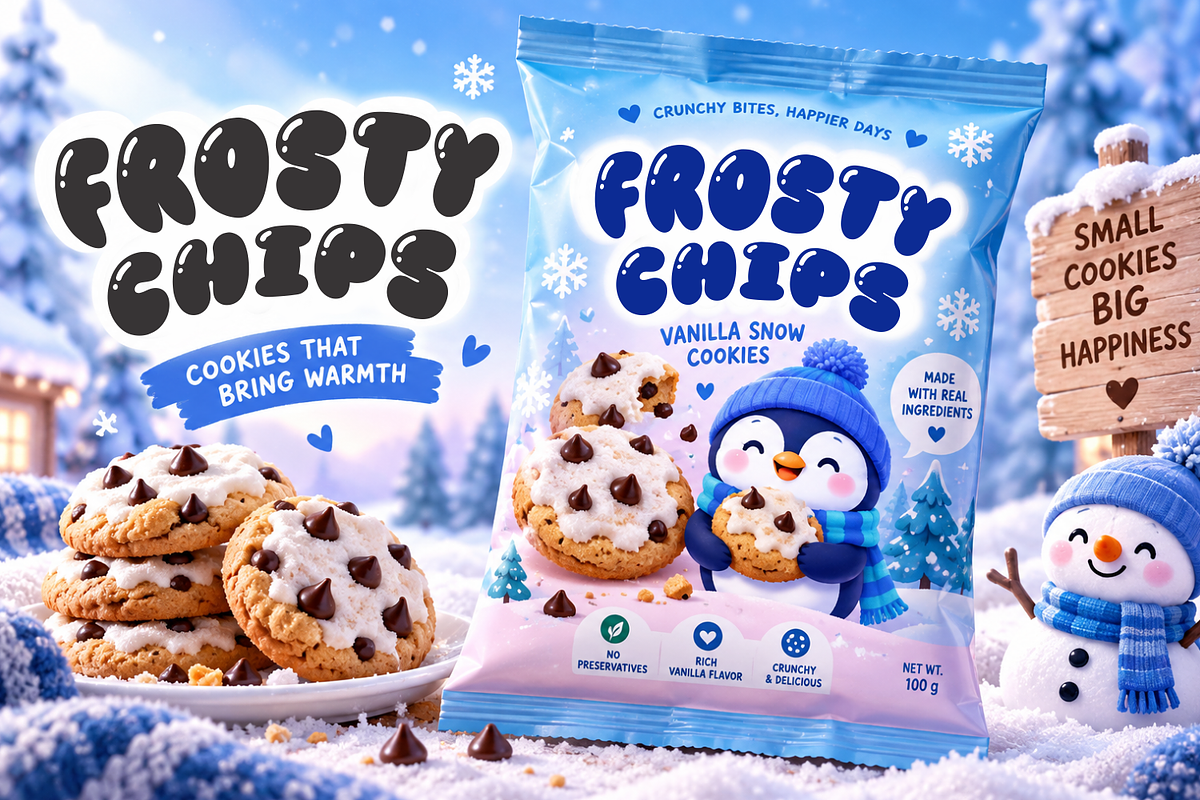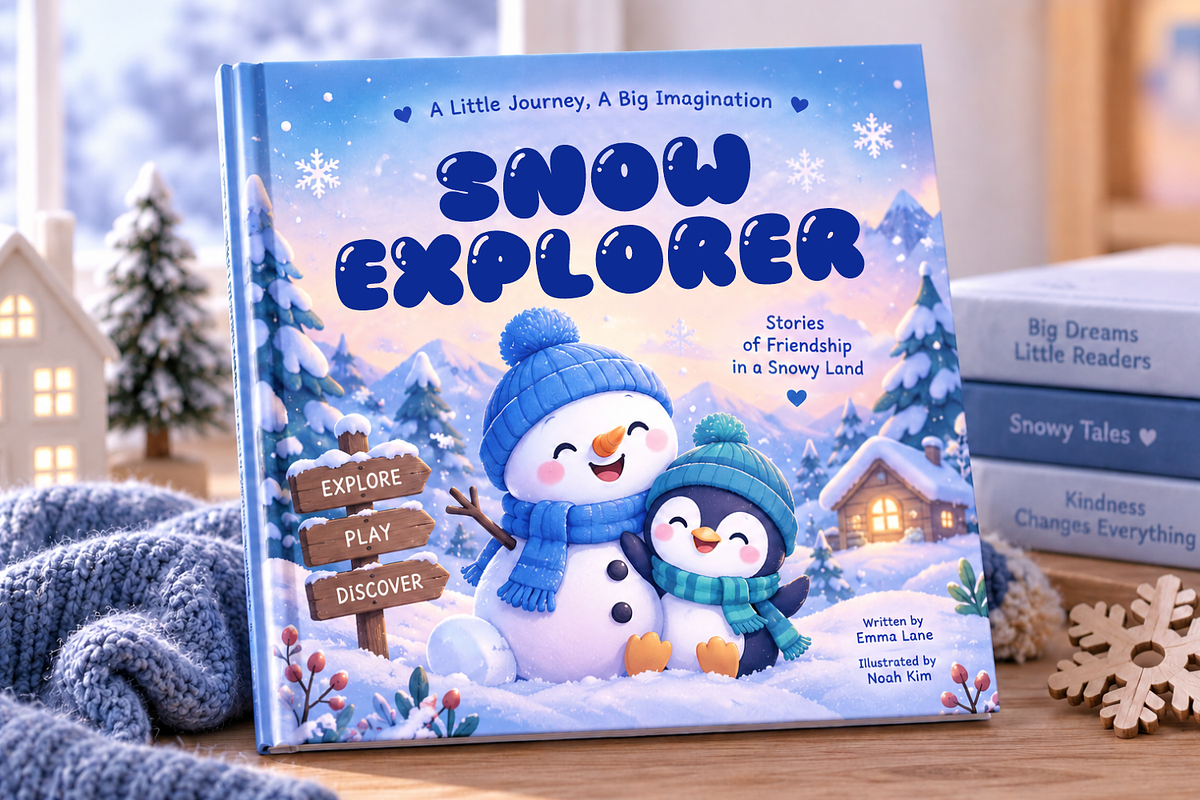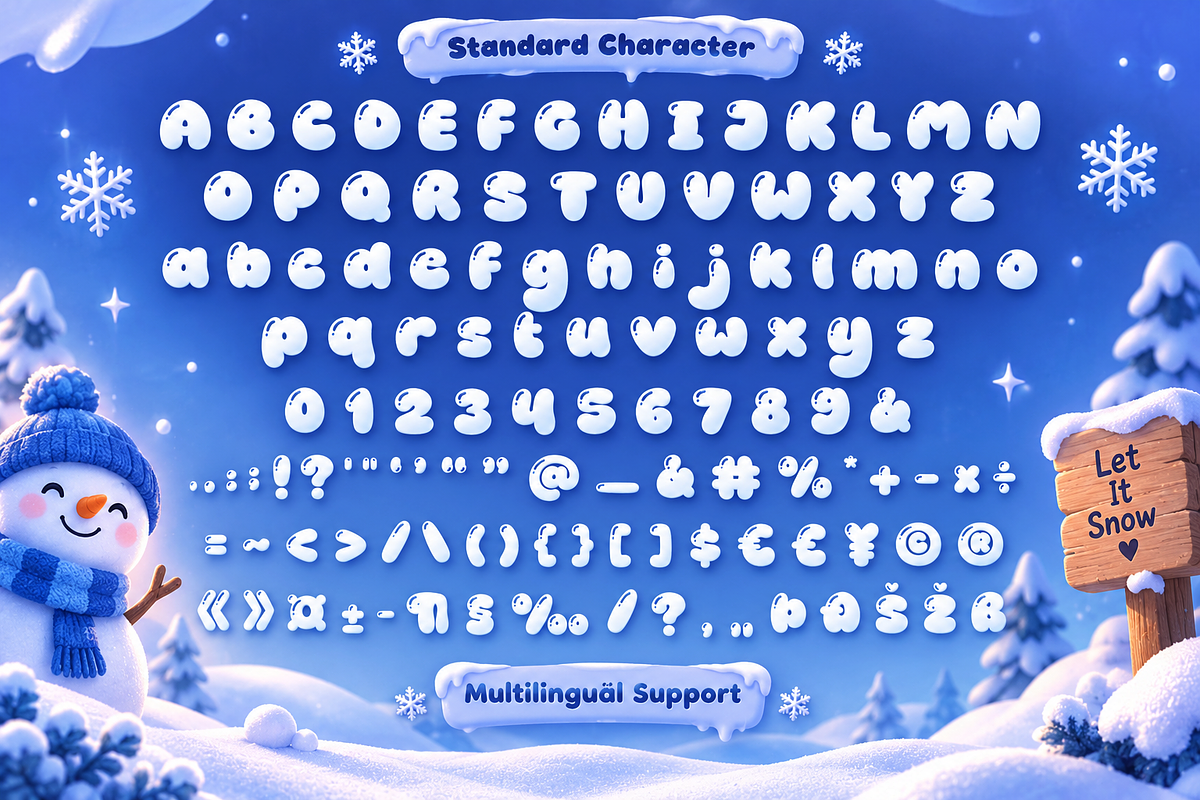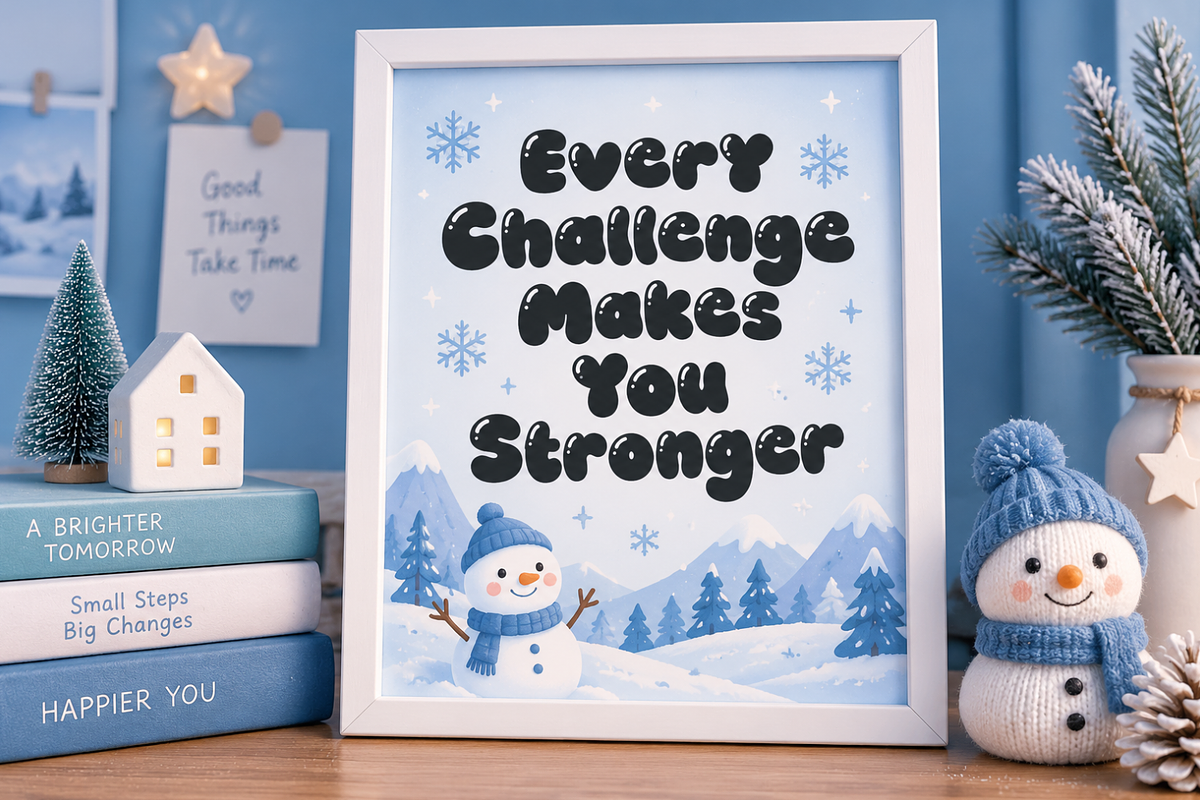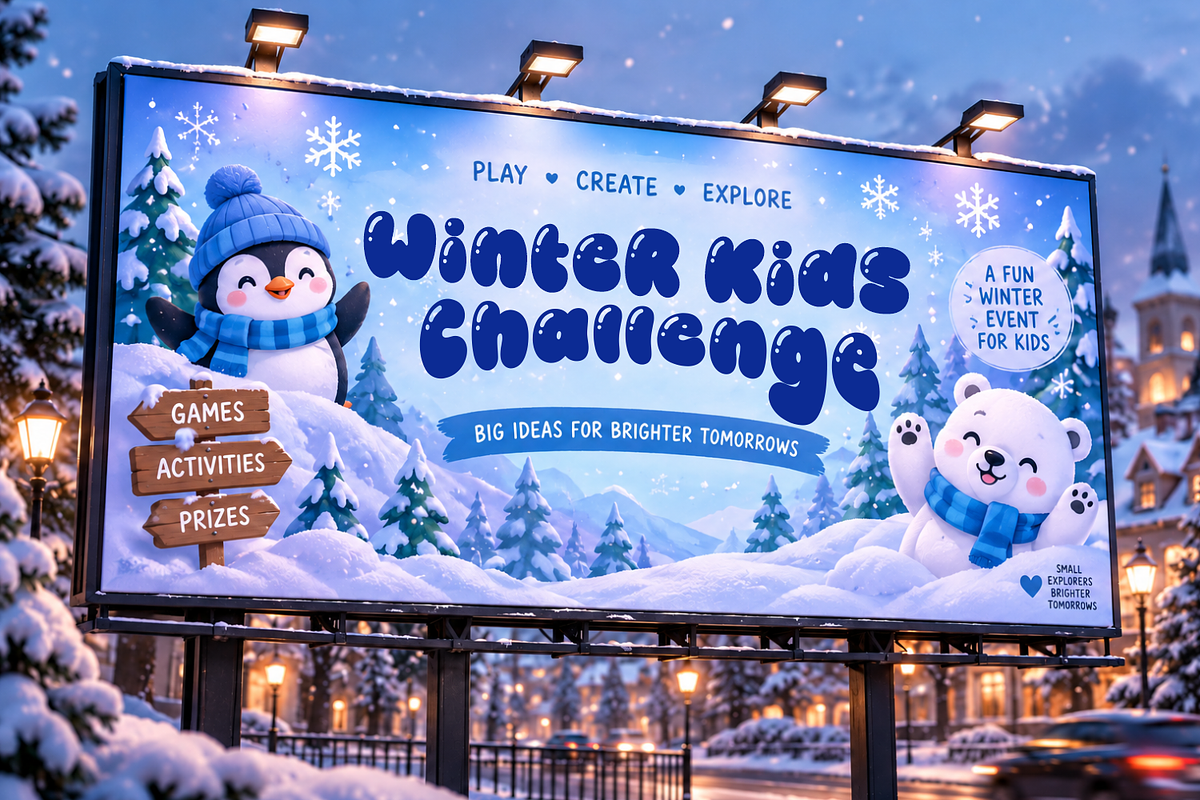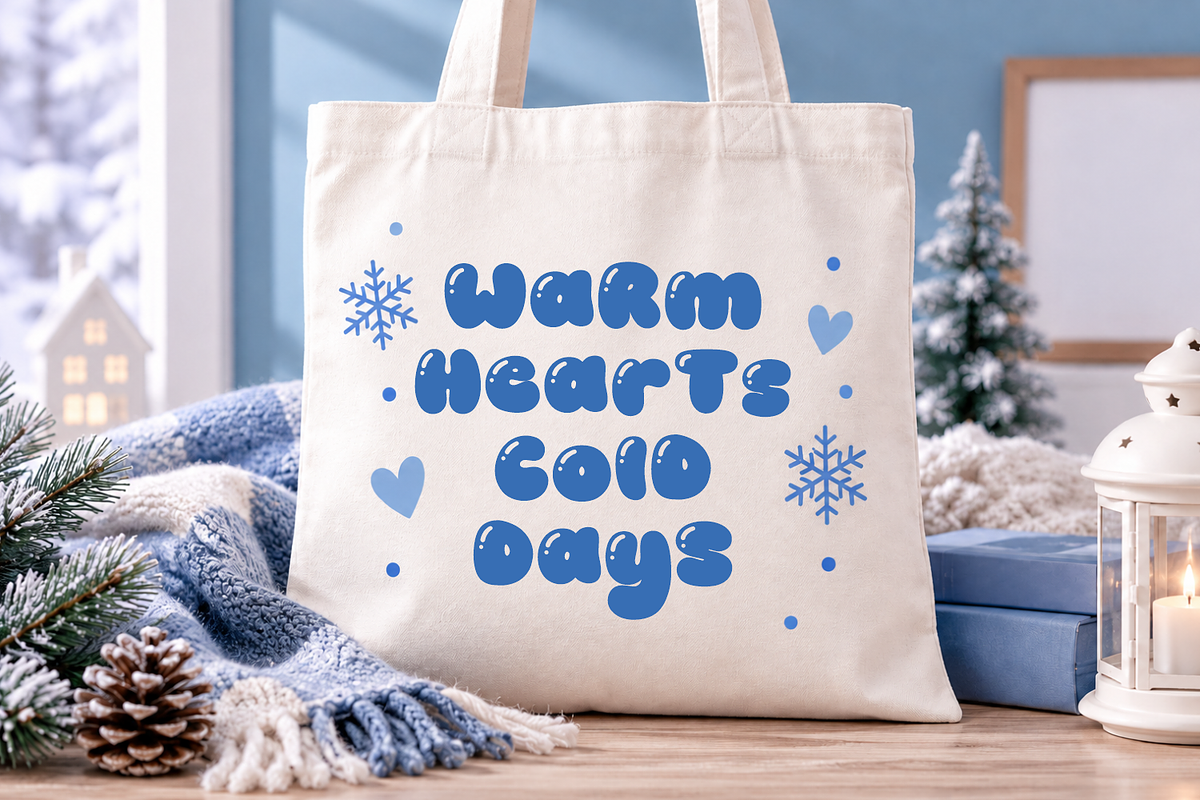
Winter Bubble – Cute Winter Display Font | Playful Snowy Font
Winter Bubble is a cute and playful winter display font designed to bring a cheerful and cozy feeling to your seasonal designs. Featuring soft, rounded, and bubbly letterforms, this font creates a fun visual personality that works beautifully for winter, Christmas, holiday, and cold-weather themed projects.
With its smooth and rounded shapes, Winter Bubble delivers a friendly and approachable appearance while maintaining strong visibility as a display typeface. The bubbly letterforms give your typography a fun and youthful character, making it perfect for headlines, titles, logos, posters, packaging, and decorative designs.
Inspired by snowy days, winter clouds, snowflakes, frozen landscapes, cozy celebrations, and magical holiday moments, Winter Bubble adds a playful winter atmosphere to every design. Its soft appearance makes it especially suitable for cheerful seasonal artwork and designs that need a warm, friendly, and whimsical touch.
Winter Bubble performs beautifully across a variety of creative projects, from Christmas cards and winter invitations to stickers, children's designs, packaging, social media graphics, merchandise, and seasonal decorations. Its bold display structure allows the letters to remain clear and eye-catching while adding plenty of personality.
With its distinctive bubbly style and winter-inspired character, Winter Bubble is a versatile choice for designers looking for a cute winter font with a fun and memorable appearance. Whether you're creating Christmas artwork, snowy illustrations, children's projects, or playful seasonal branding, this font brings a fresh and cheerful touch to every word.
# Key Features
Cute Winter Display Font
A charming display typeface featuring soft, rounded, and bubbly letterforms.
Playful Bubble Style
Smooth shapes create a fun, friendly, and youthful typographic personality.
Winter-Inspired Character
Perfectly suited to snowy, icy, Christmas, holiday, and seasonal design themes.
Eye-Catching Display Typography
Ideal for headlines, titles, logos, posters, labels, and other large typography.
Fun & Versatile Font
Works beautifully for children's designs, stickers, packaging, crafts, merchandise, and digital artwork.
Extended glyphs provide flexibility for a variety of international design projects.
# Why Choose Winter Bubble?
Winter Bubble is a cheerful cute winter font created for designers who want typography with a soft, playful, and memorable personality. Its rounded bubble shapes give every word a friendly appearance while making headlines and decorative text instantly stand out.
Whether you're creating Christmas cards, winter posters, children's artwork, stickers, packaging, invitations, merchandise, Cricut projects, or seasonal social media graphics, Winter Bubble adds a fun and cozy winter touch to your designs.